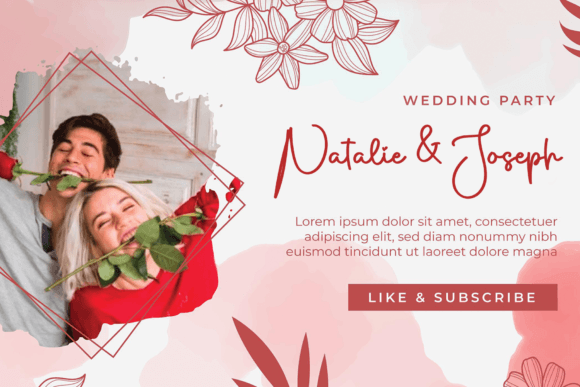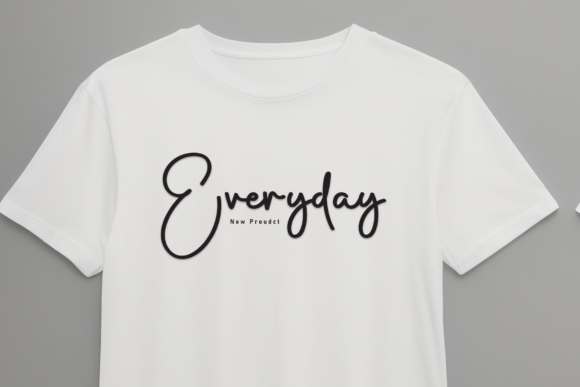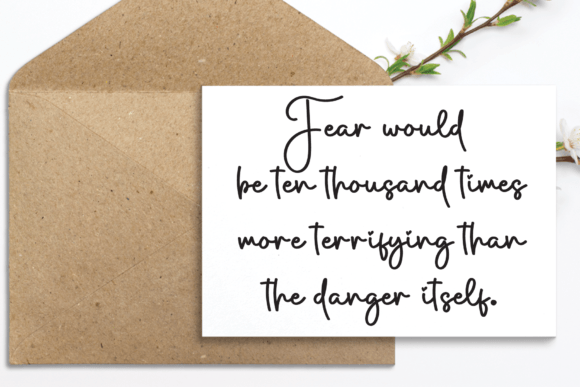
Introduction to Smooth Signature Font
Remember that moment when you’re brainstorming ideas for your next creative project, and you stumble upon the perfect font to elevate your design? For designers, finding that one special font can make all the difference. It’s the moment when your project goes from ordinary to extraordinary. That’s exactly what the Smooth Signature Font can do for you.
With its modern, elegant style, this font is perfect for adding a personal touch to your designs. Whether you’re creating a signature, invitation, or any other design that requires a sophisticated yet approachable feel, the Smooth Signature Font is an excellent choice. Its fluid strokes and graceful curves make it an ideal design resource for any creative project.
Key Features of Smooth Signature Font
- High-quality font with a smooth, elegant design, perfect for various creative projects.
- Ideal design resource for creating professional-looking signatures, logos, and other graphical elements.
Honest Review: Smooth Signature Font
As a designer, I’m always on the lookout for high-quality fonts to elevate my creative projects. The Smooth Signature Font has caught my attention, and I’m excited to share my honest review.
- ✨ High-quality design: The font is sleek, modern, and professional-looking, making it perfect for business cards, letterheads, and other corporate materials.
- ✨ Versatility: Smooth Signature Font is suitable for a wide range of creative projects, from digital signage to print materials.
- ⚠️ Limited character set: The font only includes a limited set of characters, which may not be suitable for complex or technical writing.
- ⚠️ Not suitable for all screens: The font’s design may not be optimized for certain screen resolutions or devices.
Overall, I’m impressed with the Smooth Signature Font. While it has its limitations, its high-quality design and versatility make it a valuable addition to any designer’s toolkit.
Smooth Signature Font
Introduction to Smooth Signature Font
Smooth Signature Font is a high-quality design resource perfect for any creative project that requires a professional and elegant touch. With a transparent background, this font is easily customizable to fit any design need.
Common Use Cases for Smooth Signature Font
Smooth Signature Font is perfect for use in business cards, letterheads, and other professional documents where a high-quality and elegant font is required.
Tips for Getting the Most Out of Smooth Signature Font
1. Experiment with different font sizes and colors to create a unique look.
2. Combine Smooth Signature Font with other design elements to create a visually appealing design.
3. Use the font in conjunction with a transparent background to create a clean and modern look.